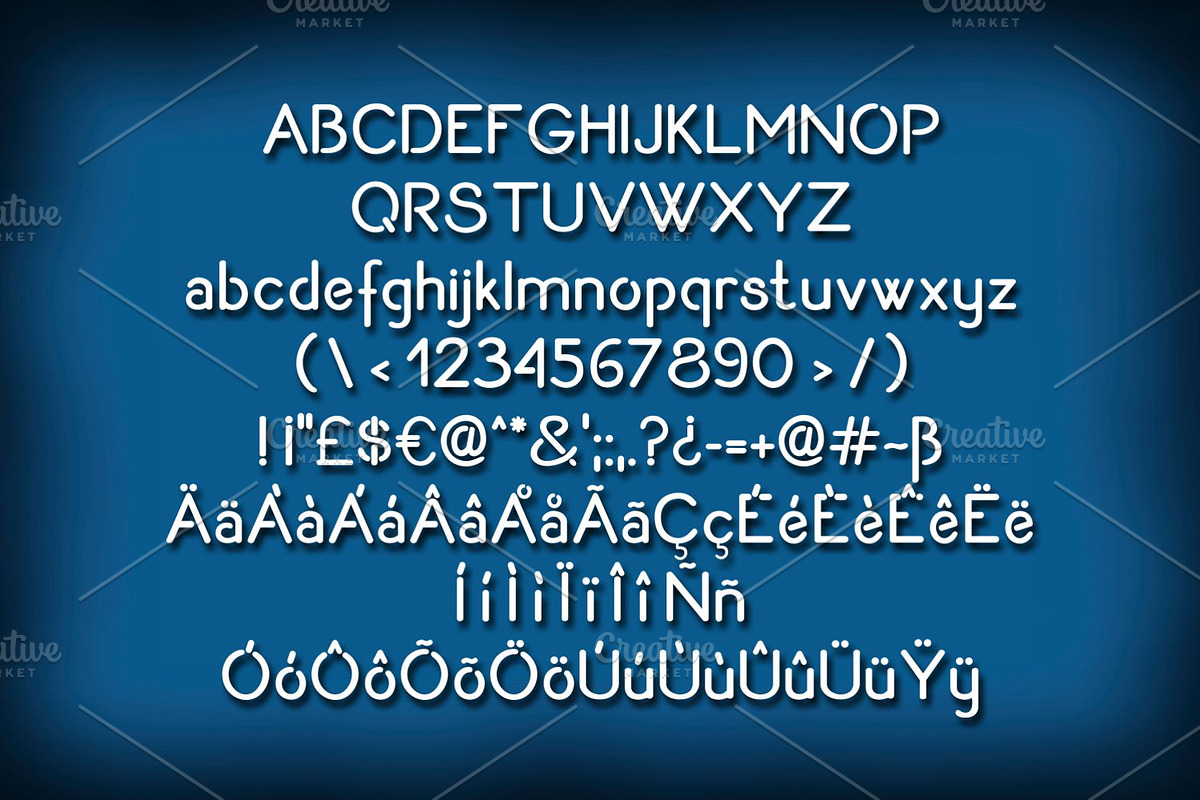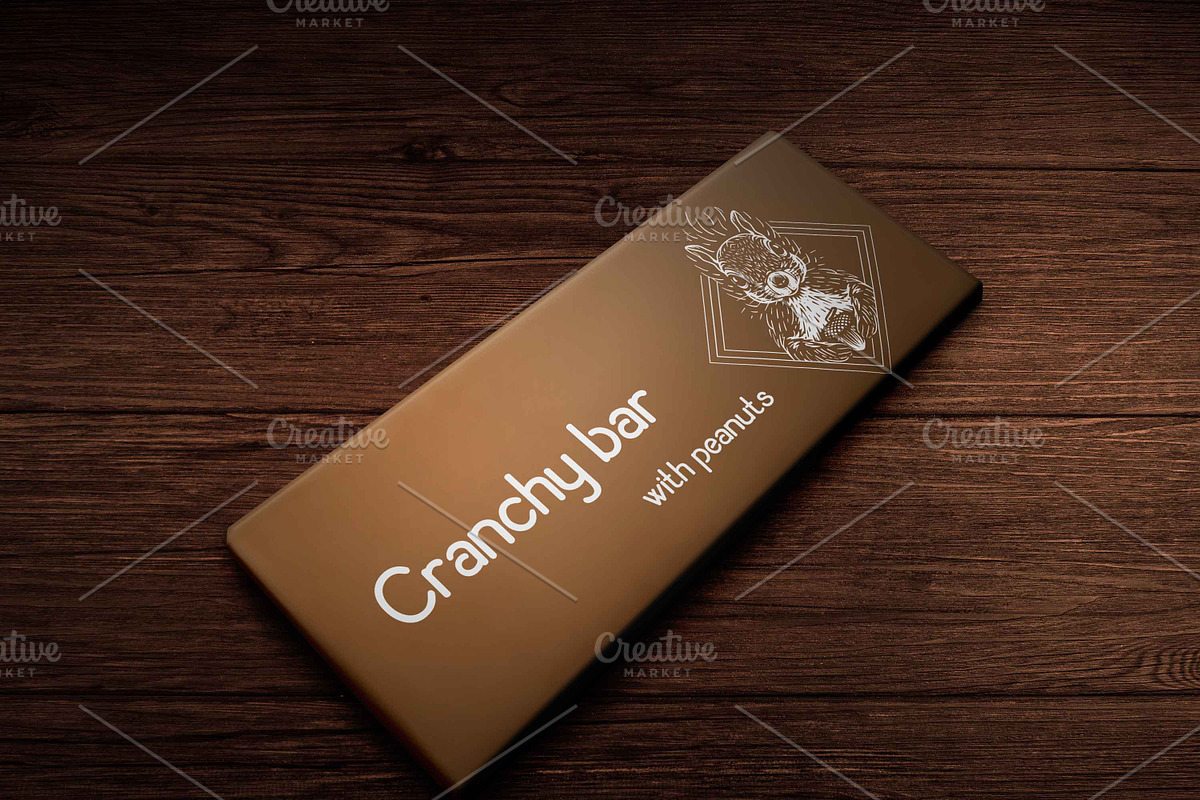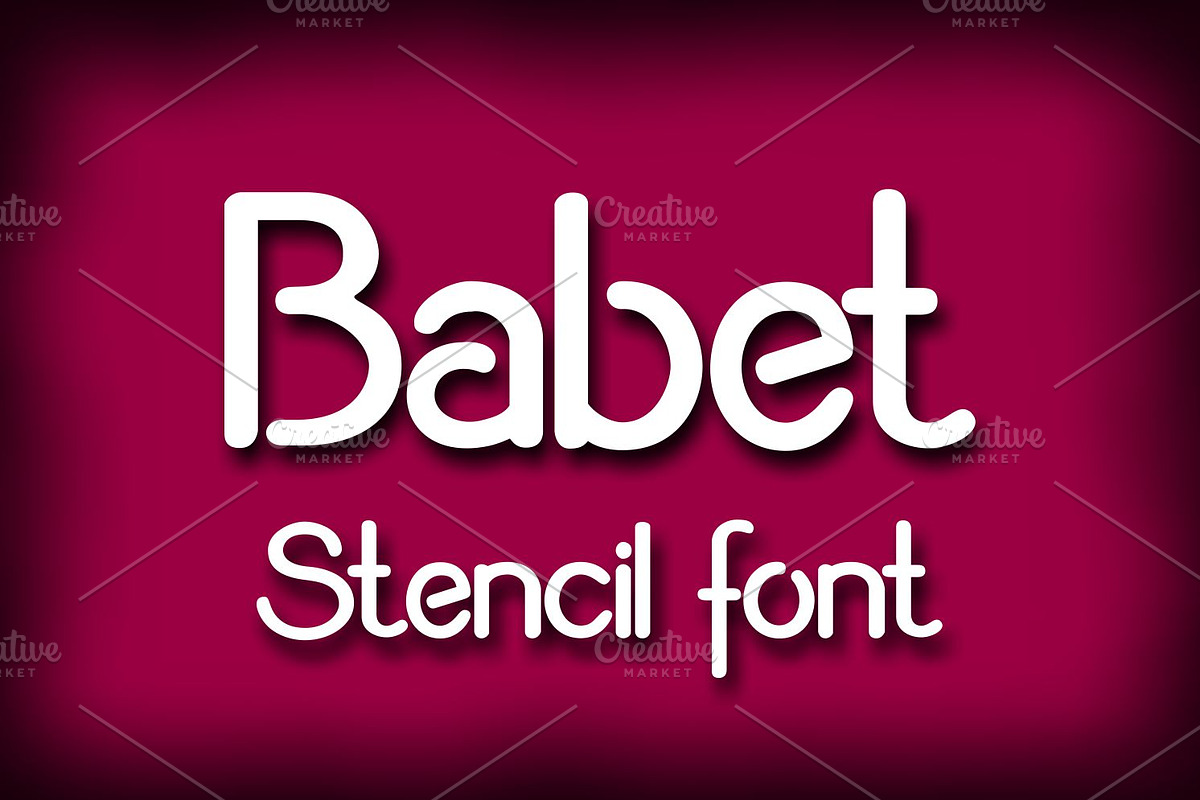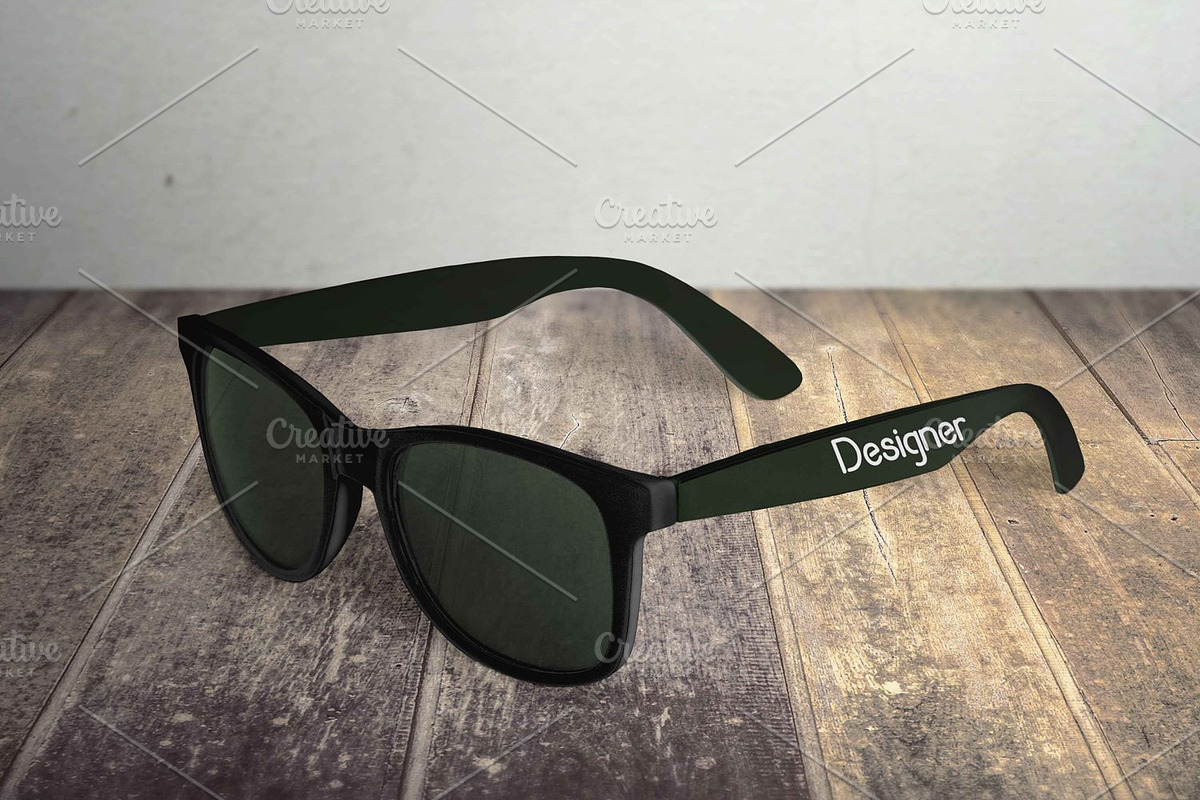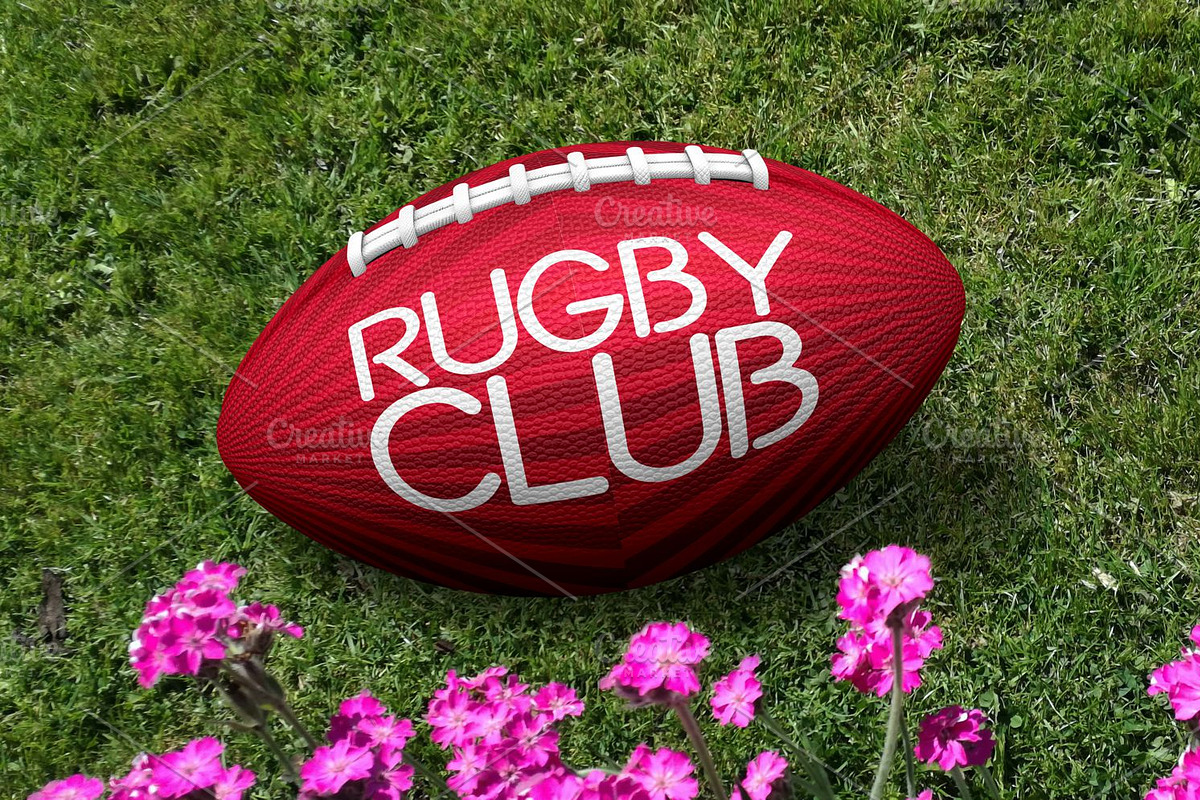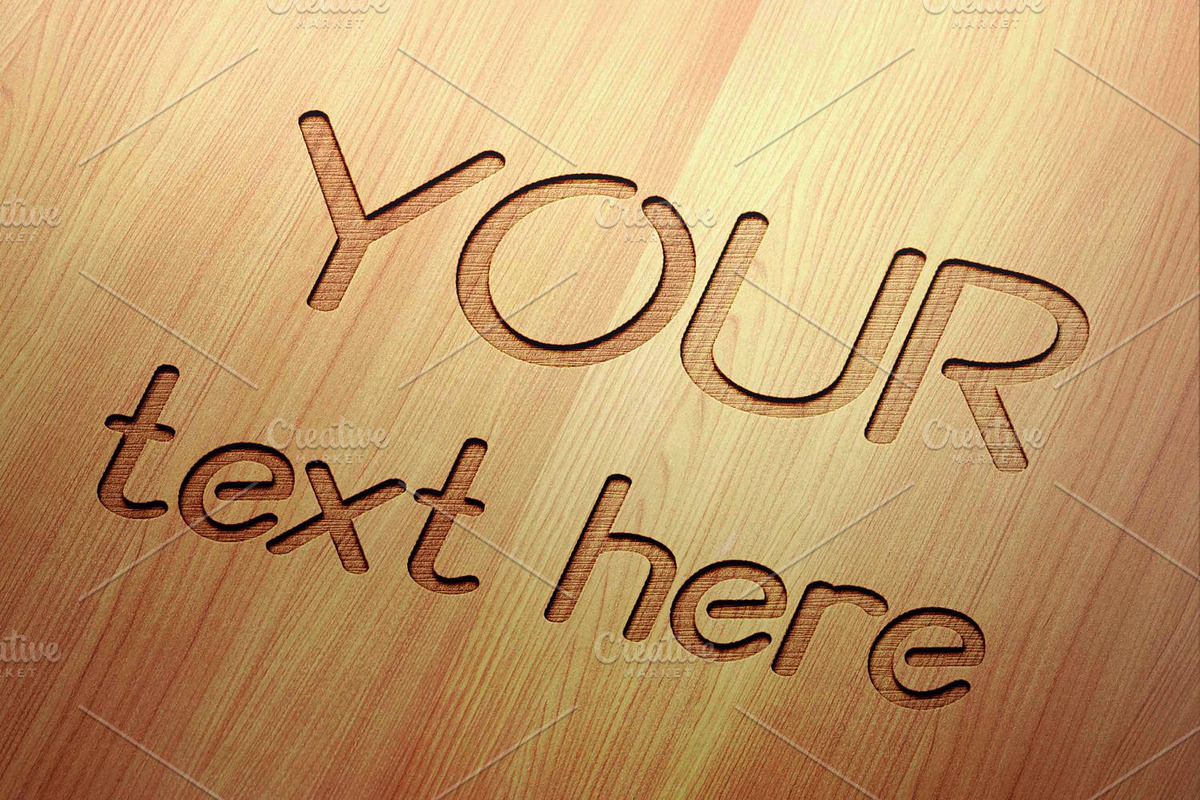
Babet
Babet is a carefully crafted stencil font without closed loops on the characters.
Babet by Digital Typeface Studio fits naturally into Branding, posters, packaging, typography.